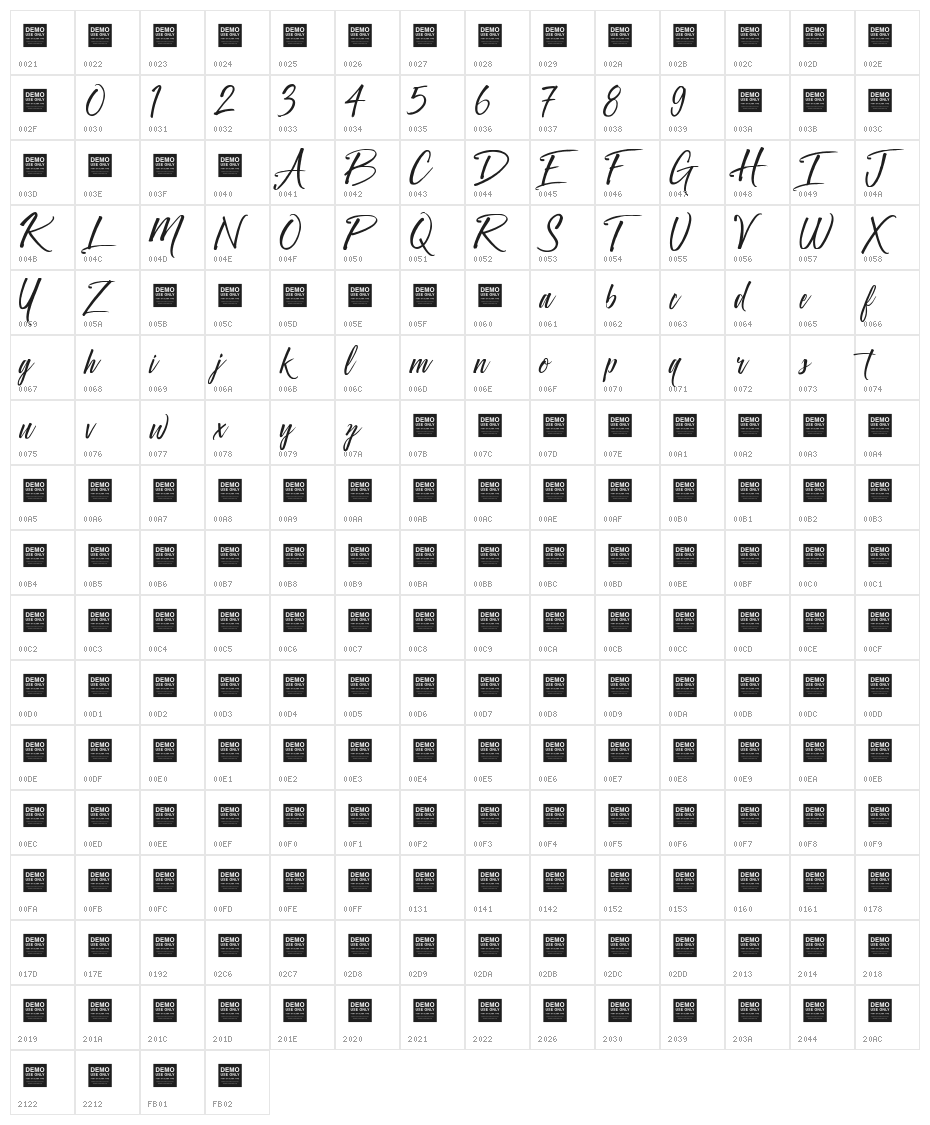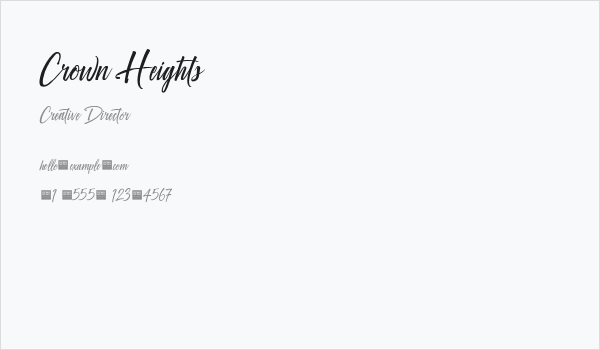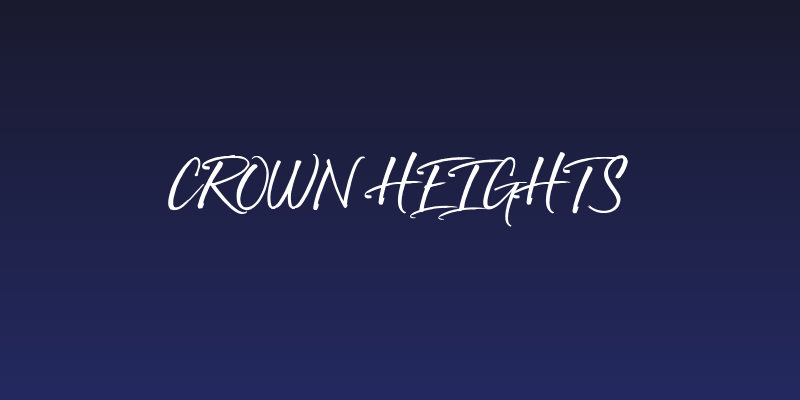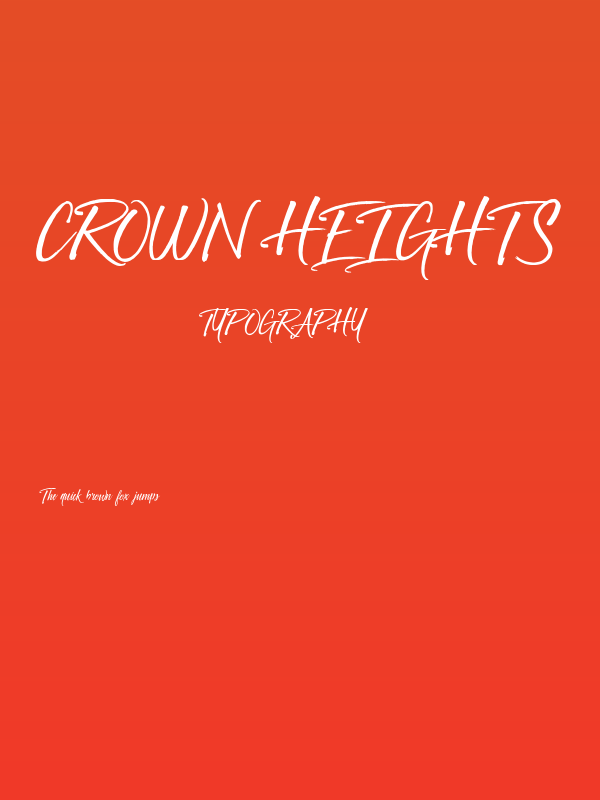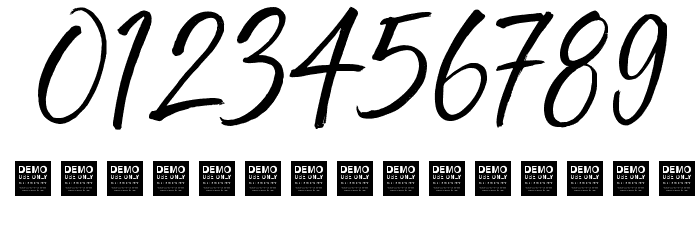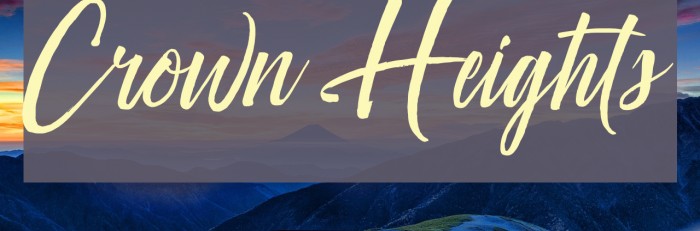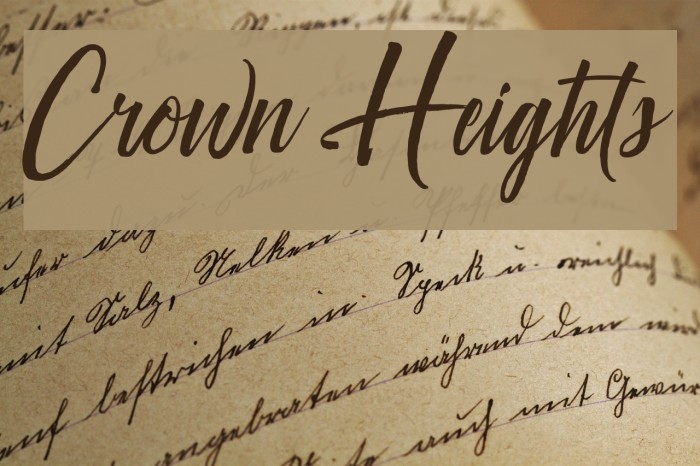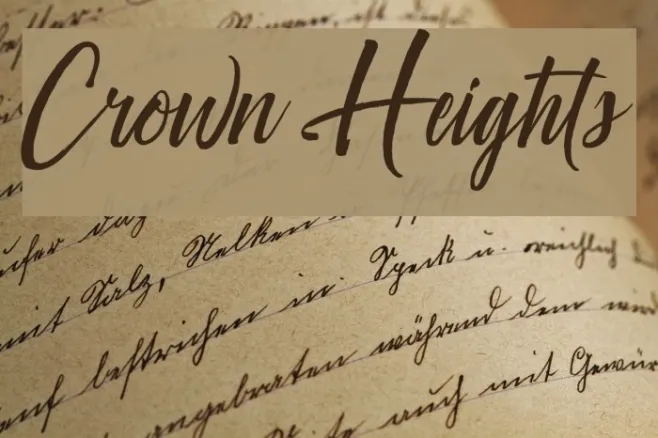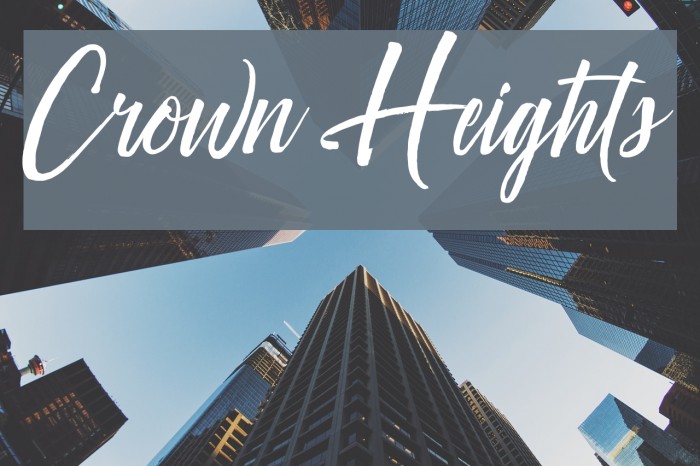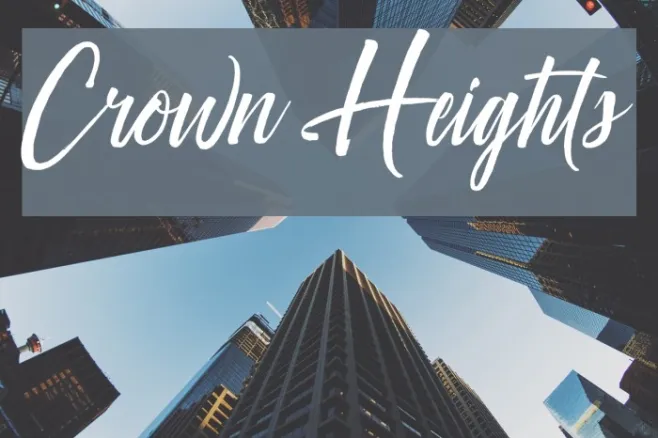
Crown Heights Font
Crown Heights Description
This font features a dynamic and expressive script style, characterized by its fluid and elegant strokes. The uppercase letters are bold and sweeping, with a sense of movement that adds a lively touch to any text. The lowercase letters maintain a consistent flow, with smooth connections between characters, enhancing readability while retaining a stylish flair. The numerals are distinct and easy to read, complementing the overall aesthetic. This font's design is perfect for projects that require a personal and artistic touch, such as invitations, branding, and creative headlines.
| Proposed Projects | Ideal for invitations, branding, creative headlines, and artistic projects. |